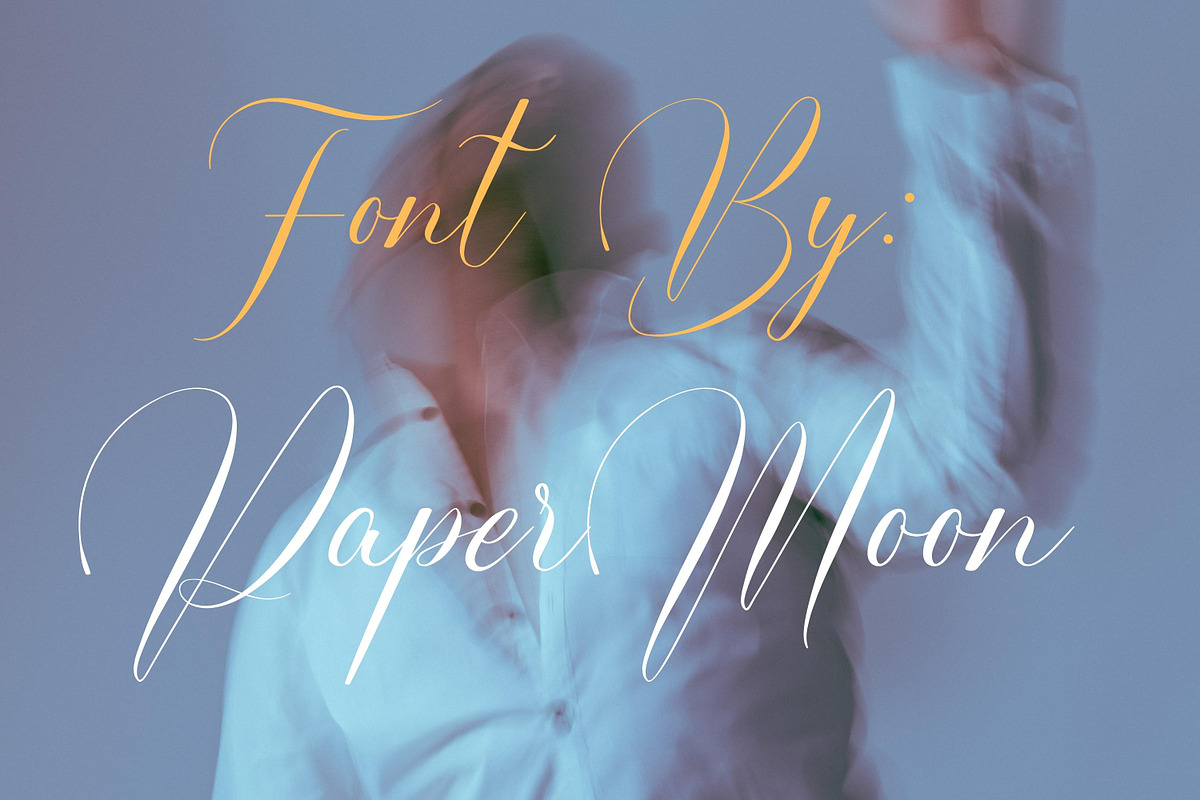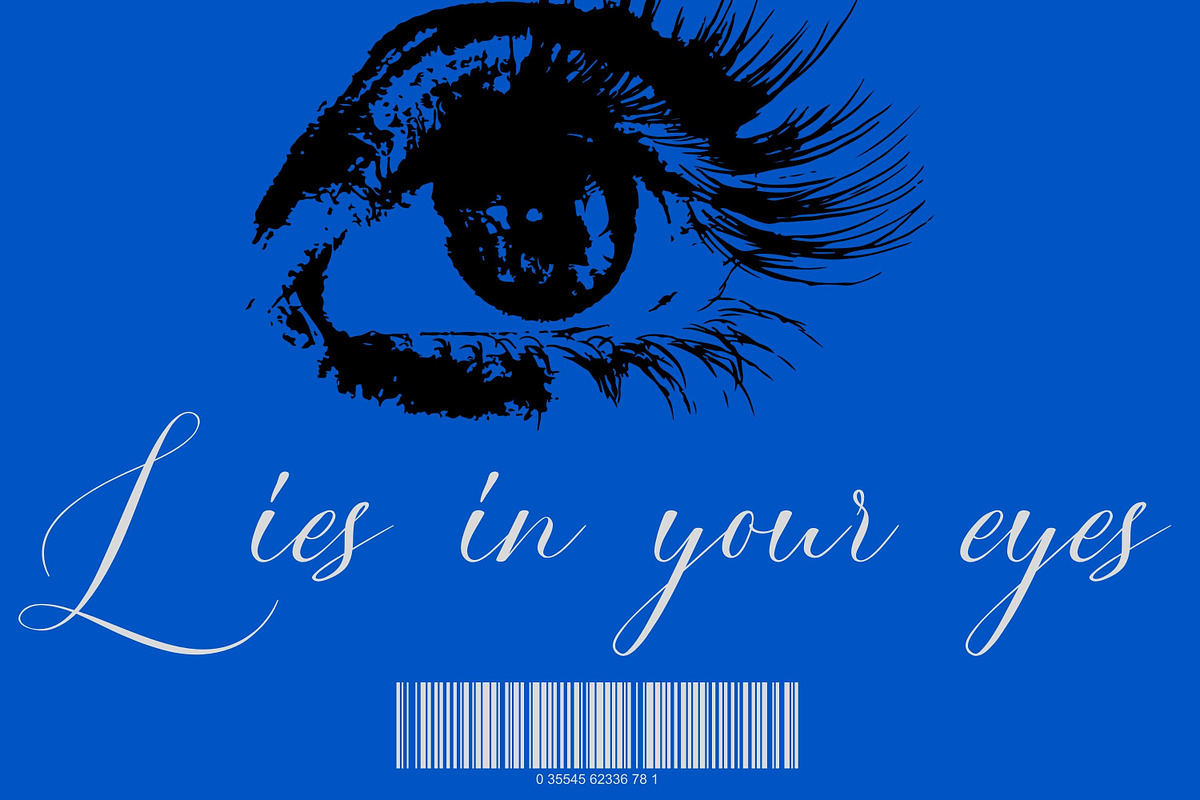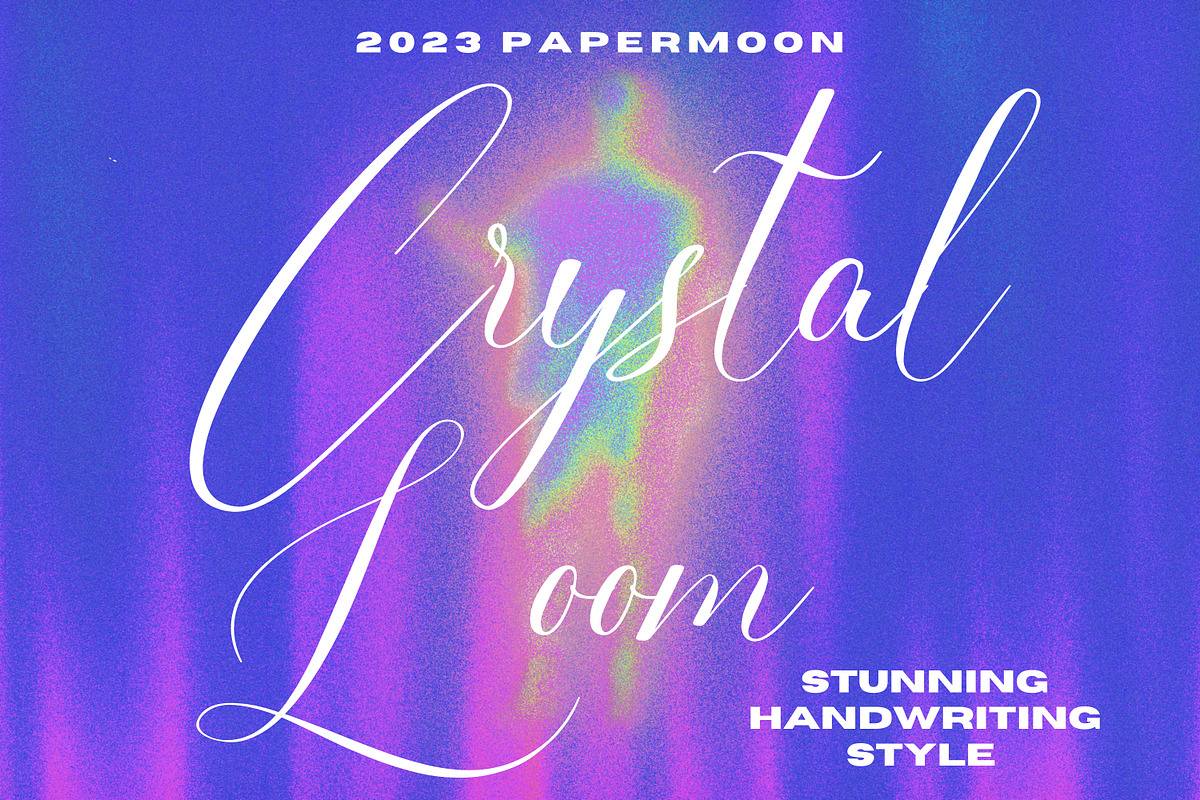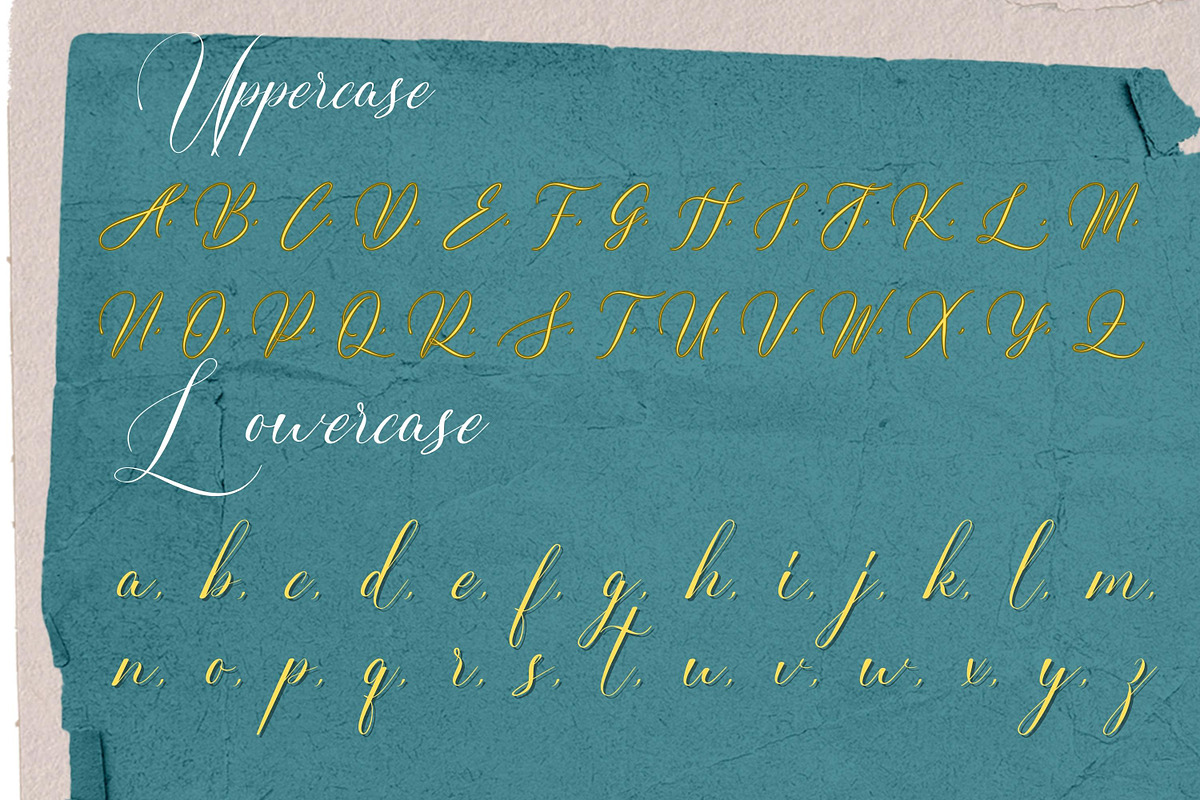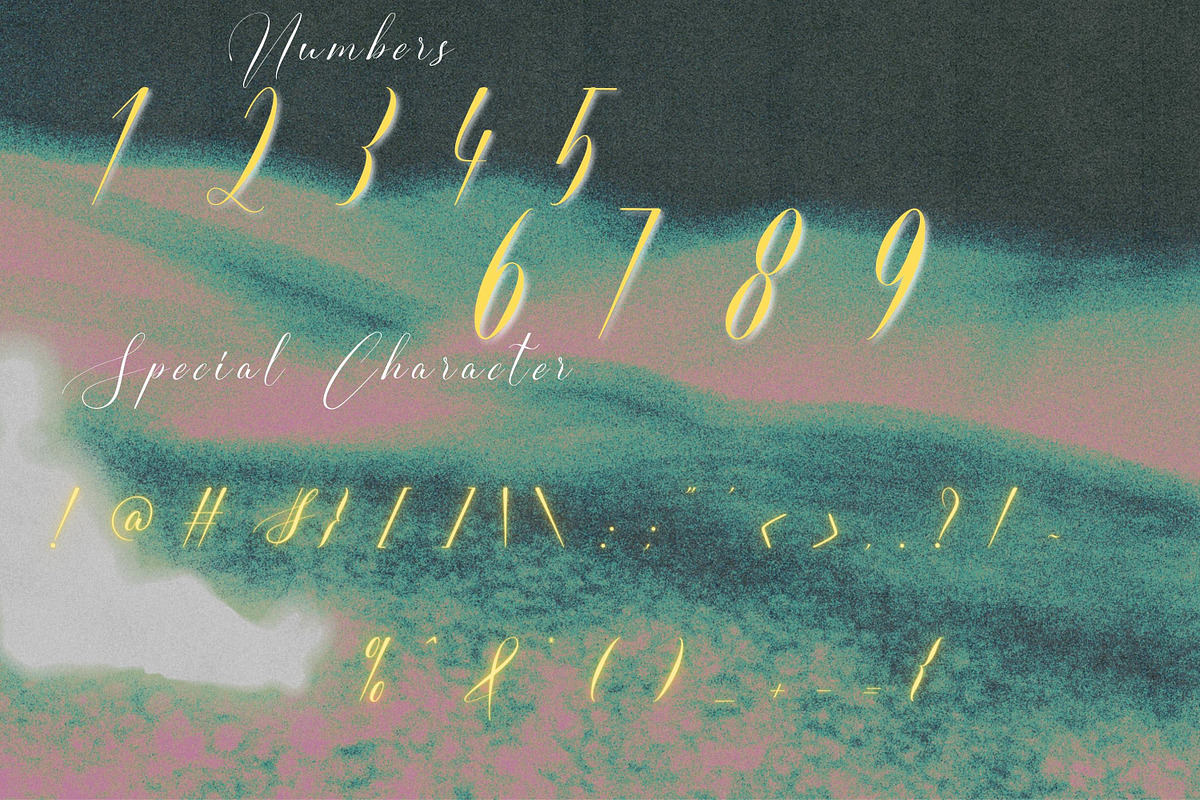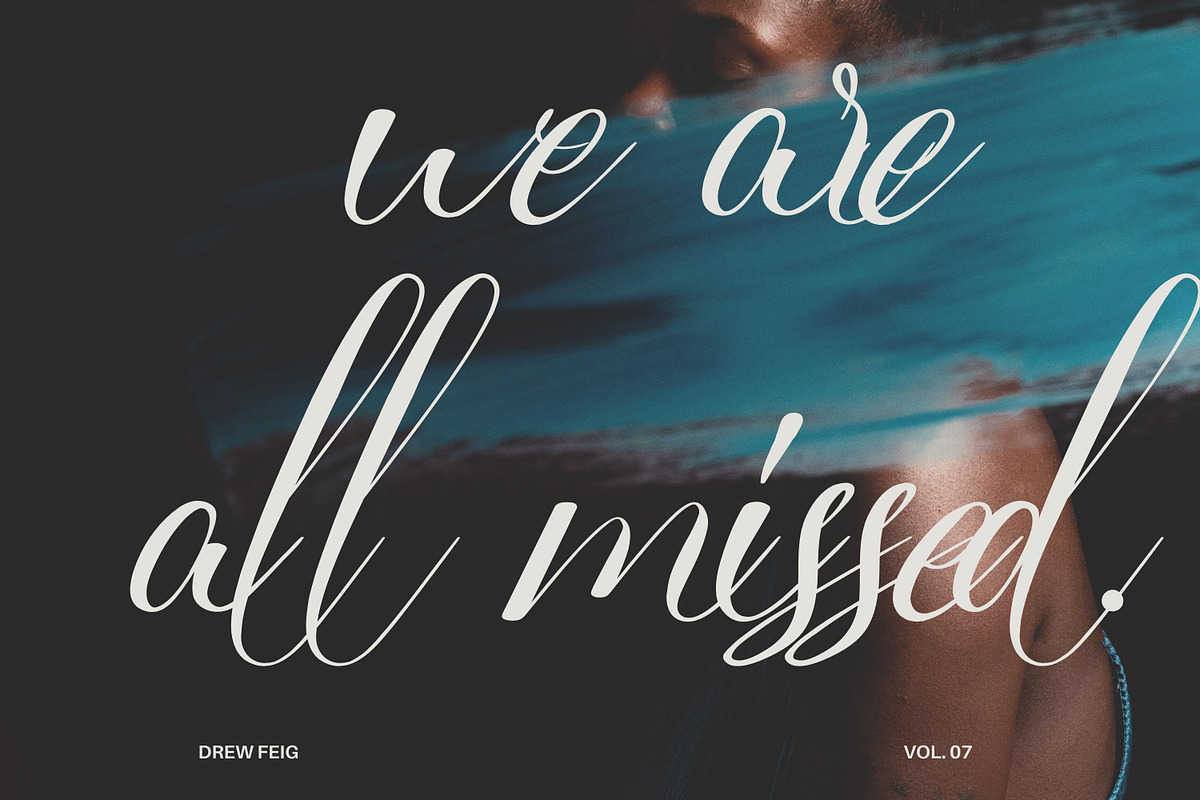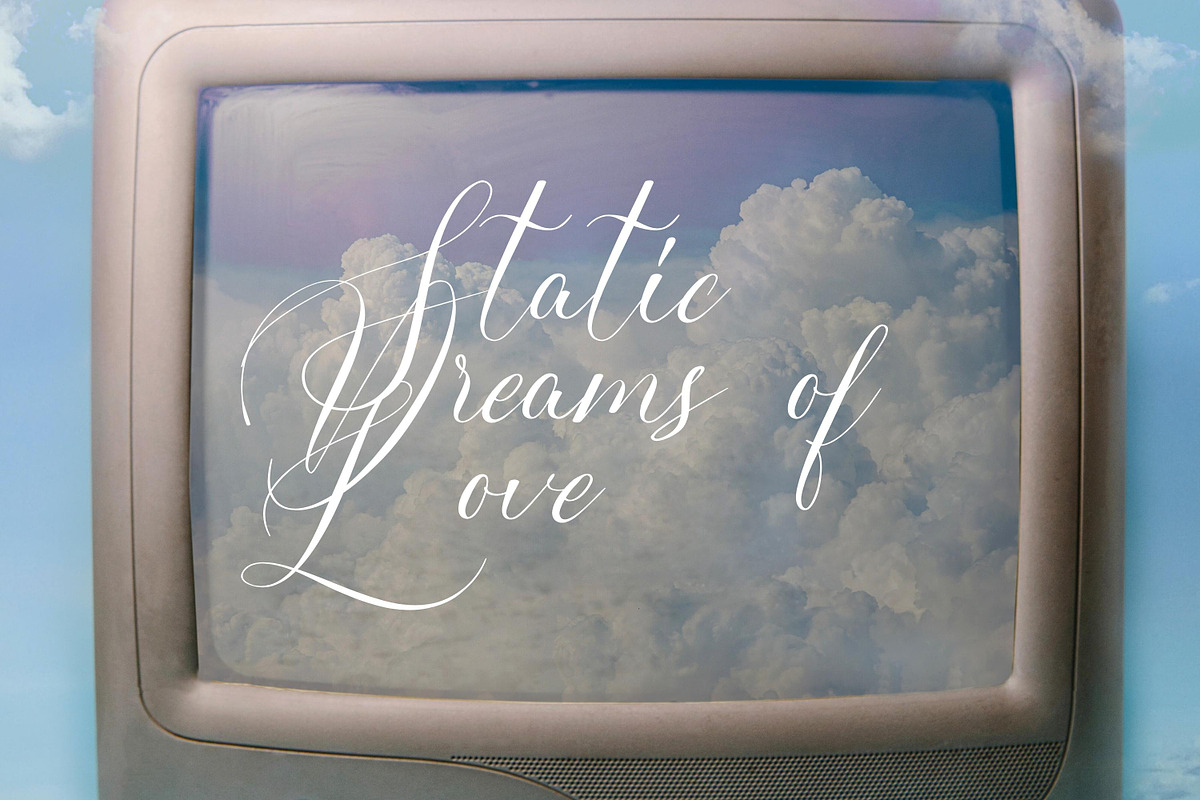
Crystal Loom Stunning Script Font
Introducing Crystal Loom, a captivating calligraphy font script renowned for its exquisite handwriting style. This unique script font is the product of meticulous craftsmanship, offering an original and distinctive appearance. Its character set is nothing short of stunning, meticulously spaced and kerned for optimal readability. Crystal Loom exudes an aura of elegance, sophistication, and timeless calligraphic charm.